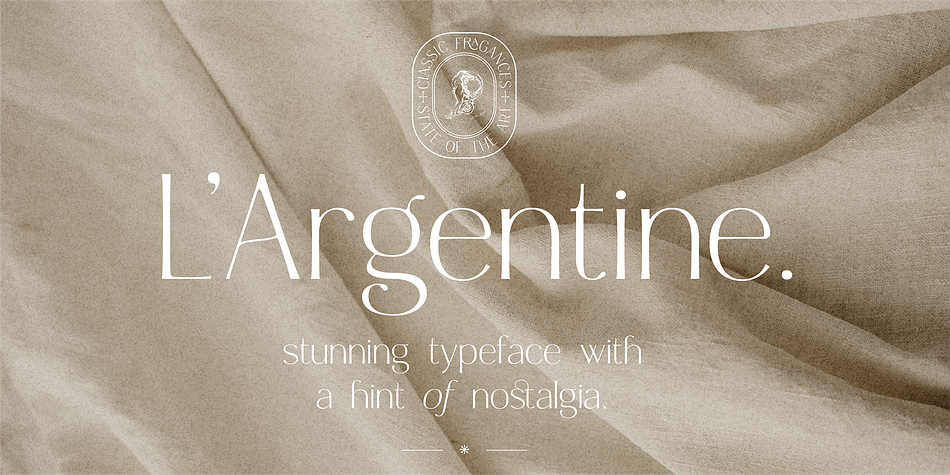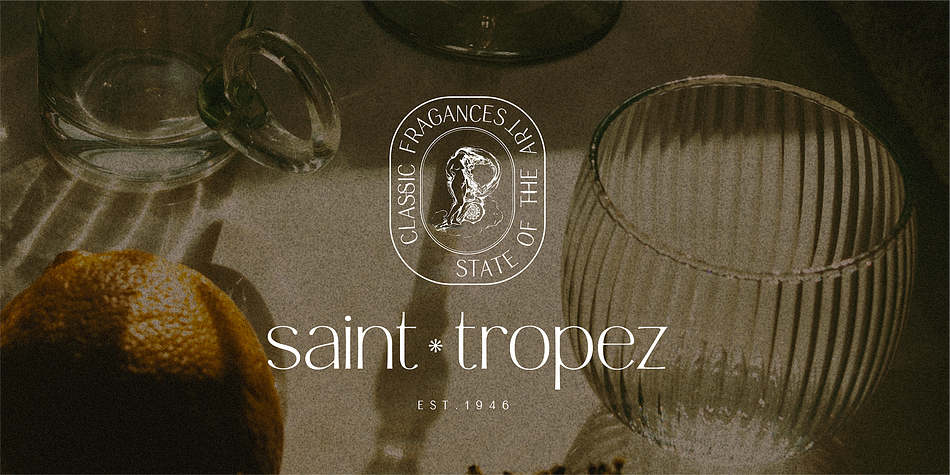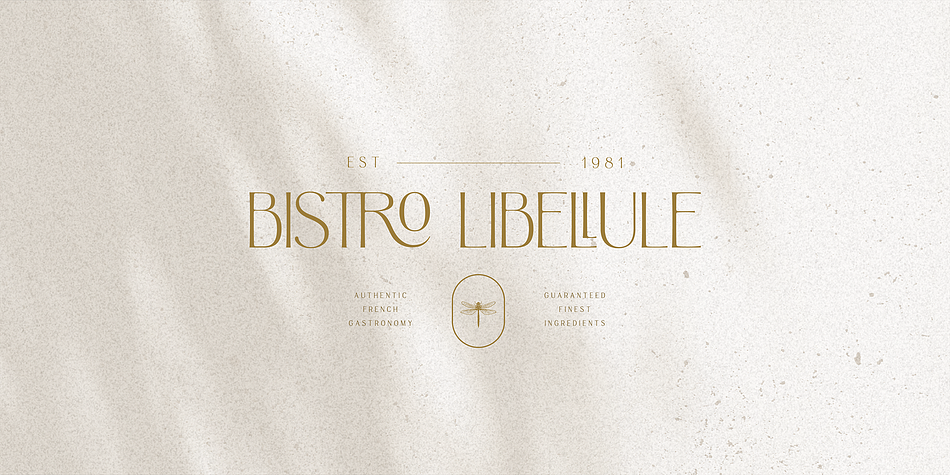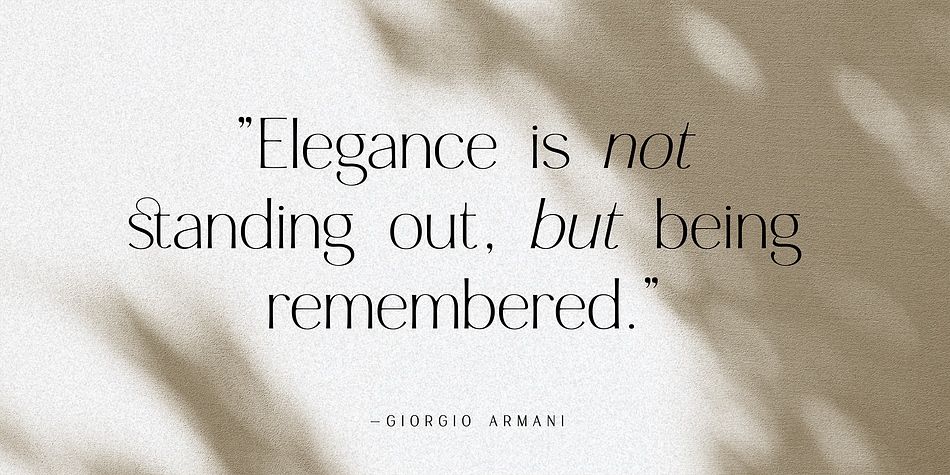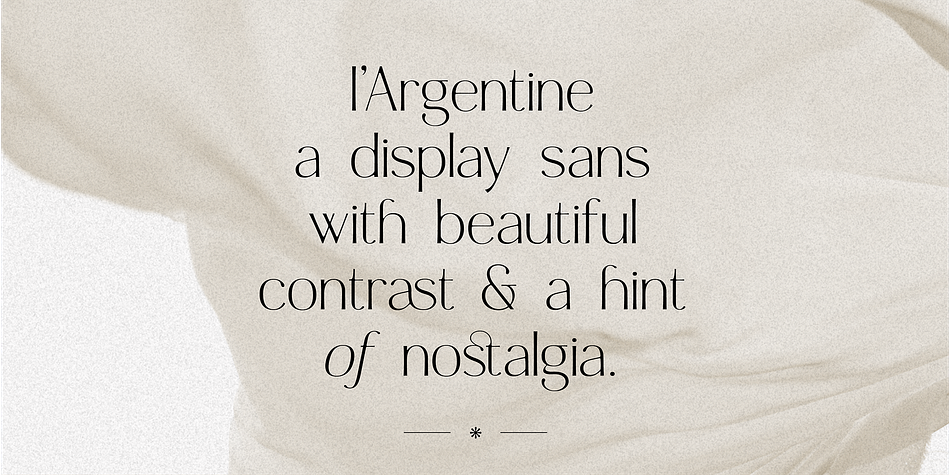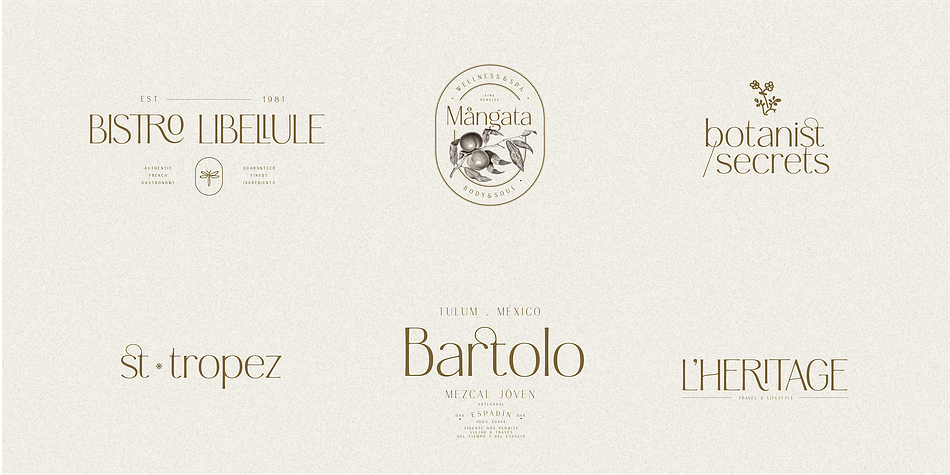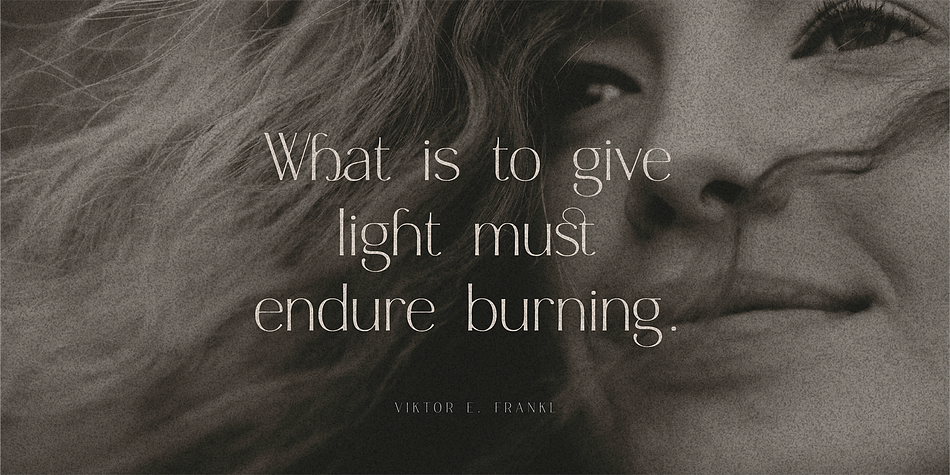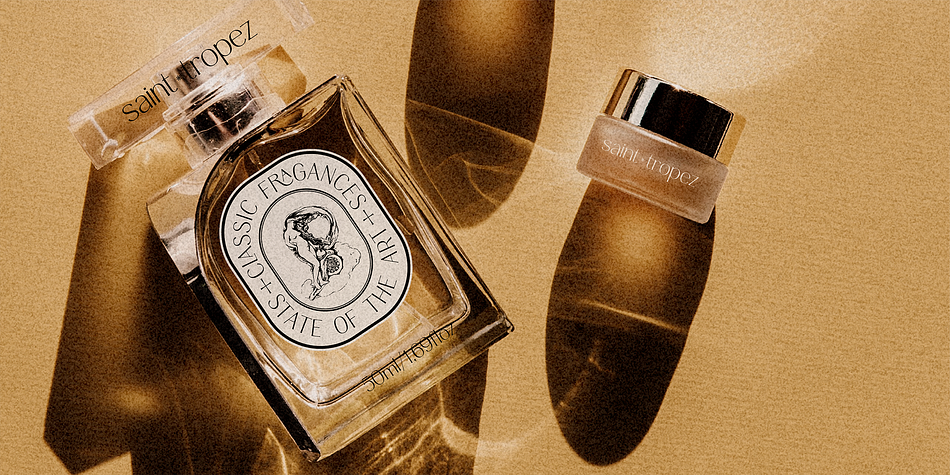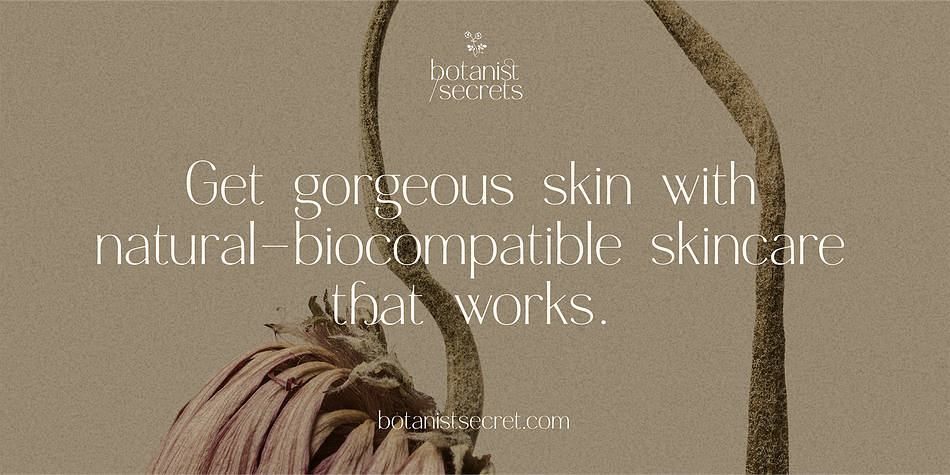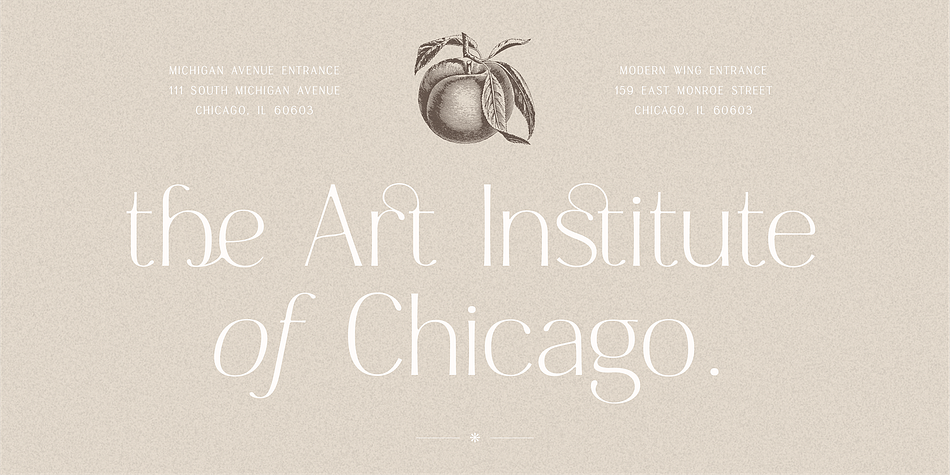
Designed by Max Duy T., HV Argentine is a display sans font family. This typeface has two styles and was published by Harmonais Visual.
l’Argentine - a display sans with beautiful contrast & a hint of nostalgia. Specially designed for vintage, retro, elegant projects, l’Argentine is perfectly suitable for creating simple, lifestyle designs such as logos, title, packaging, and more. This typeface comes along with 6 free logo templates.